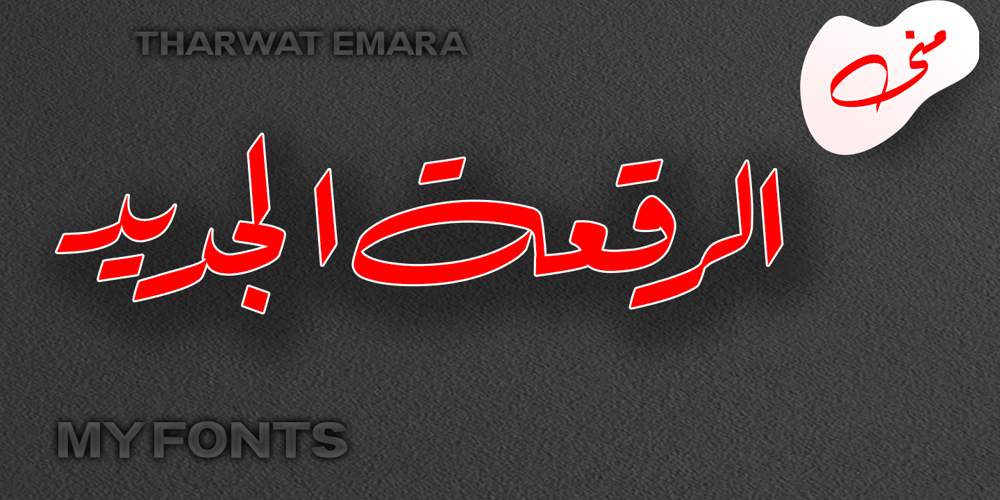
TE Mona Tharwat Emara Font Family was designed by Tharwat Mohamed Emara and published by Tharwat Emara. TE Mona Tharwat Emara contains 6 styles and family package options. TE Mona Tharwat Emara,” a masterpiece of Arabic calligraphy crafted by the renowned Egyptian calligrapher, Tharwat Emara. This exquisite Ruqaa font seamlessly blends tradition with innovation, offering a timeless elegance that captures the essence of Arabic script.Tharwat Emara, a distinguished figure in the world of calligraphy, has lent his artistic prowess to create a font that is not merely a collection of characters but an embodiment of cultural richness. Each stroke of the pen reflects the heritage of Egyptian calligraphy, echoing the historical echoes of an ancient civilization.”TE Mona Tharwat Emara” stands as a testament to Emara’s dedication to perfection. The font’s graceful curves and meticulously designed letterforms pay homage to the classical Ruqaa style, while subtle contemporary touches infuse it with a modern flair. It is a harmonious blend of tradition and innovation, making it an ideal choice for projects that demand sophistication and cultural resonance.Designed with precision and passion, this font is not just a typographic tool; it’s a work of art that brings the beauty of Arabic calligraphy to the forefront. Each character is a brushstroke of inspiration, contributing to a seamless flow that captures the eye and mesmerizes the reader.Whether you are working on a branding project, publication, or artistic endeavor, “TE Mona Tharwat Emara” adds a touch of timeless class. Embrace the elegance of Arabic script with this font, where every detail reflects the expertise of a master calligrapher.As you embark on your creative journey, let “TE Mona Tharwat Emara” be your muse. Elevate your designs, captivate your audience, and embrace the heritage of Arabic calligraphy with this exceptional font. Embrace the legacy, embrace the art – TE Mona Tharwat Emara awaits, a font that transcends time and tradition